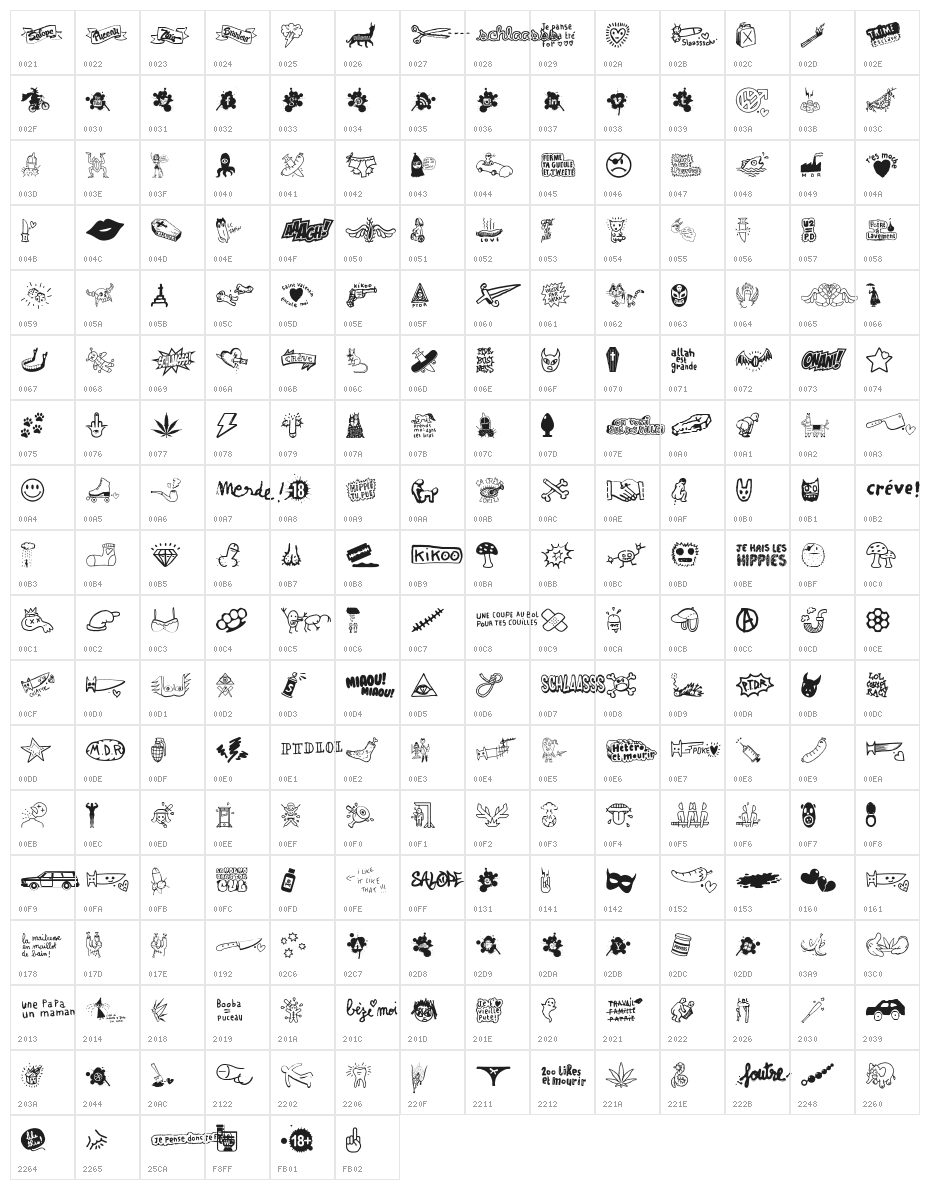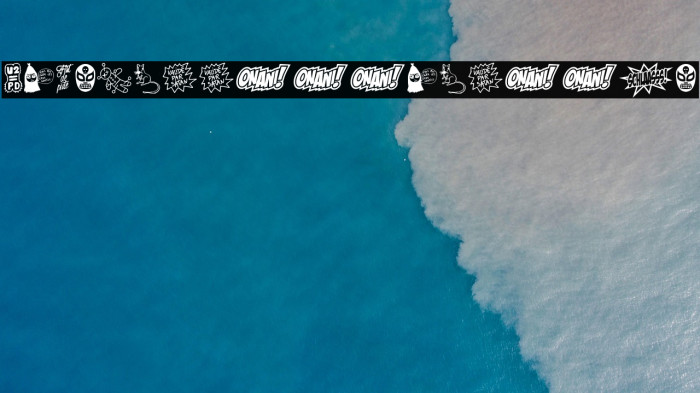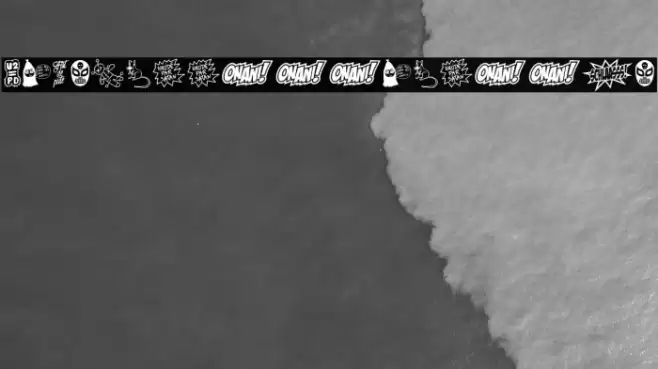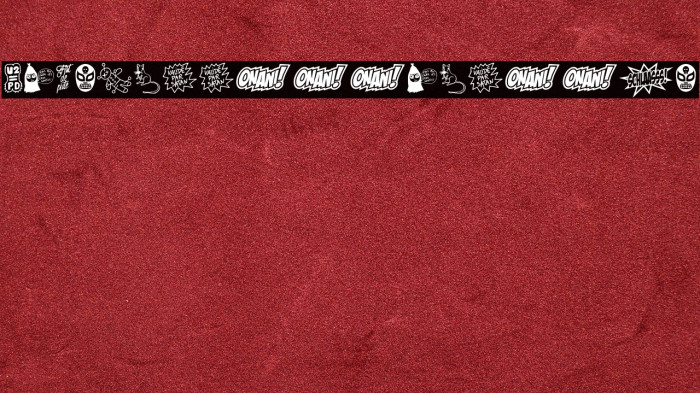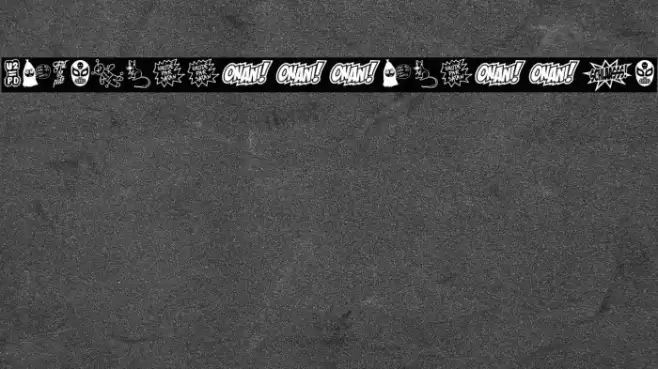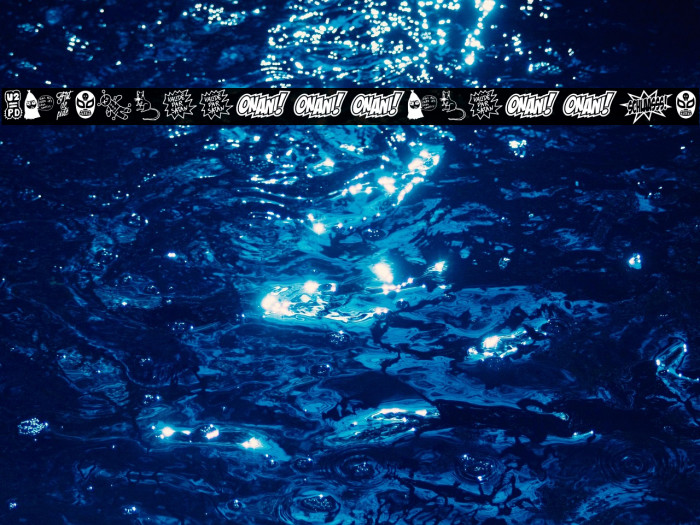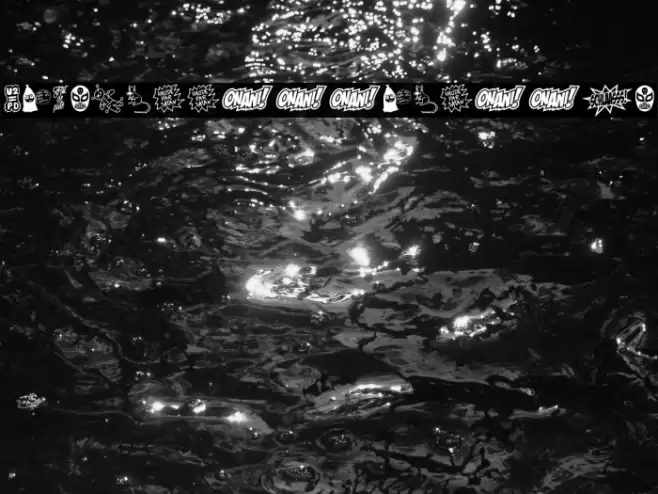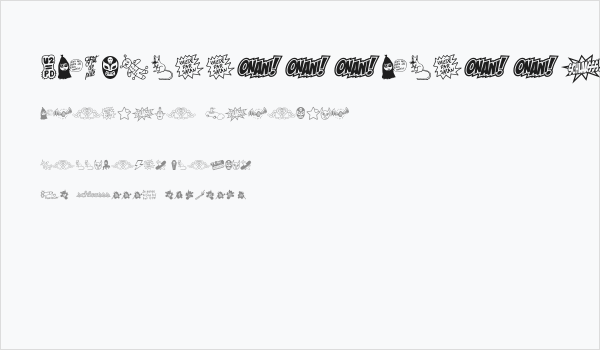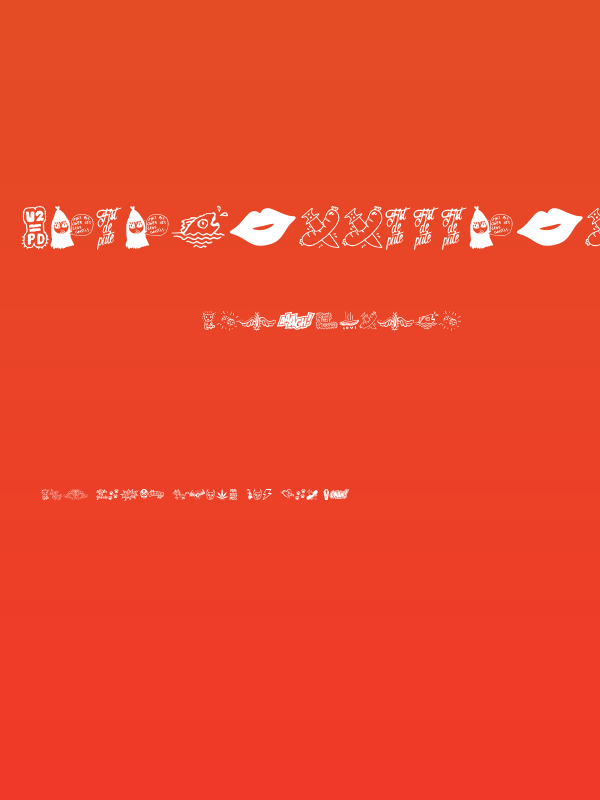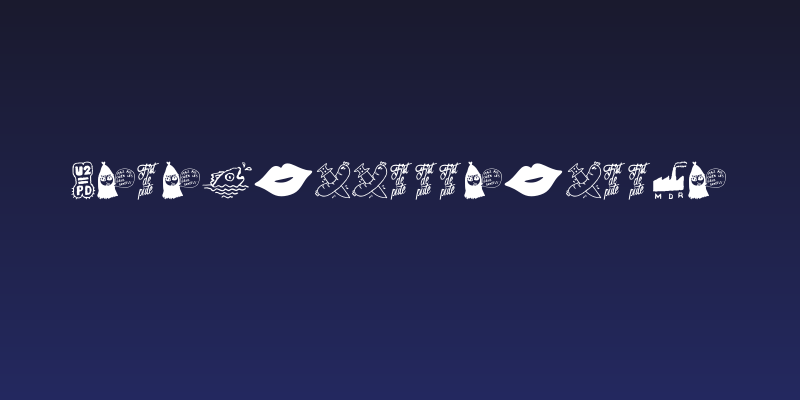
WCSchlaasssClassic Font
WCSchlaasssClassic Description
A highly decorative and eclectic collection of hand-drawn doodles, symbols, and illustrated words, featuring a mix of playful, edgy, and comic-inspired elements. The set includes icons, expressive text, and various motifs with a graffiti or street-art vibe.
| Overall Style | Decorative, Playful, Urban, Comic-inspired |
| Use Case | Logos, Headlines, Posters, Social Media, Stickers |
| Proposed Projects | Posters, zines, album covers, youth-oriented branding, stickers, social media graphics, comic books. |